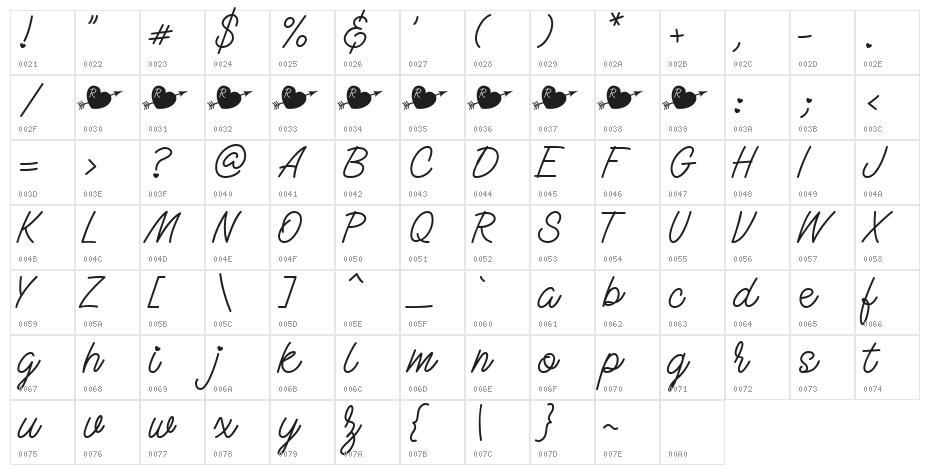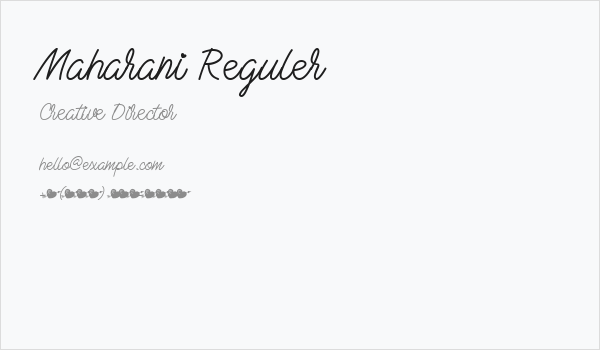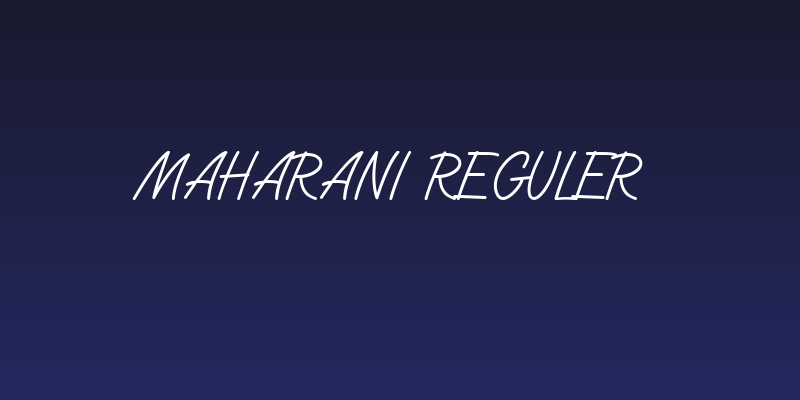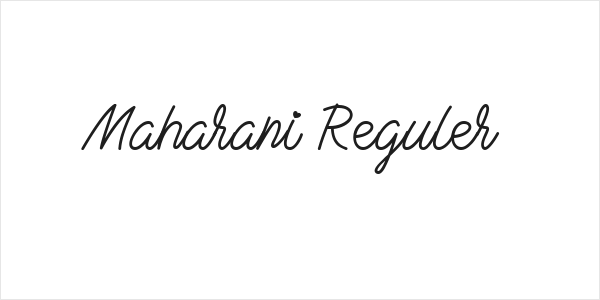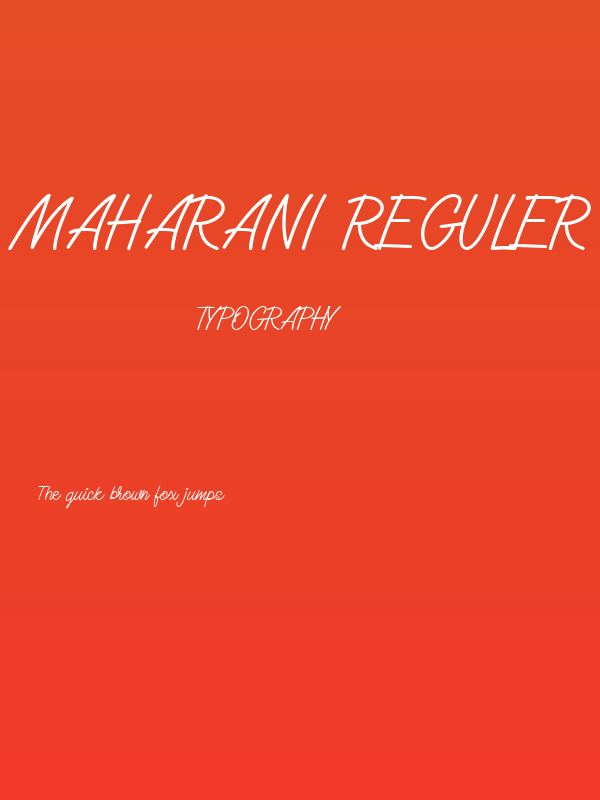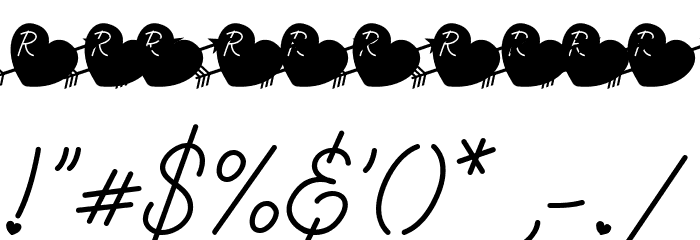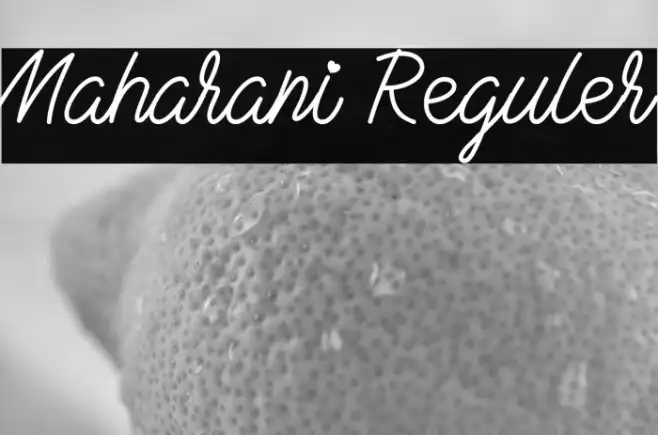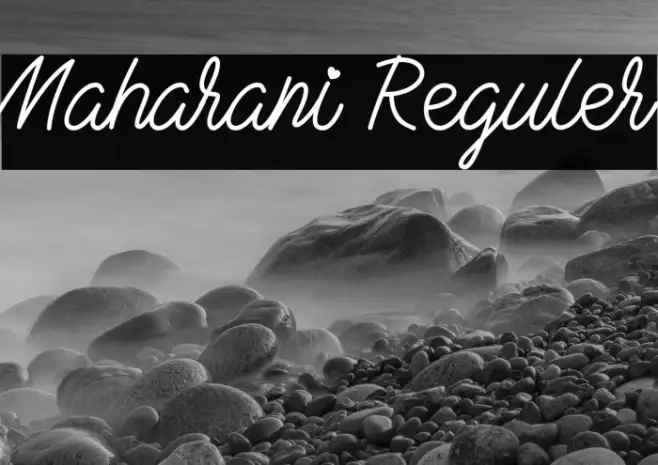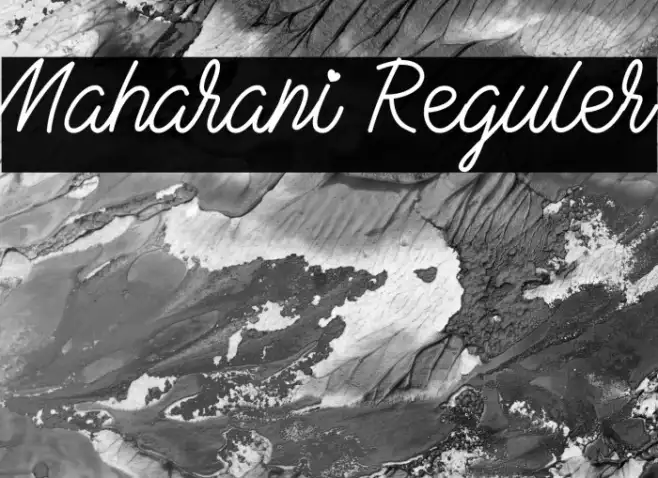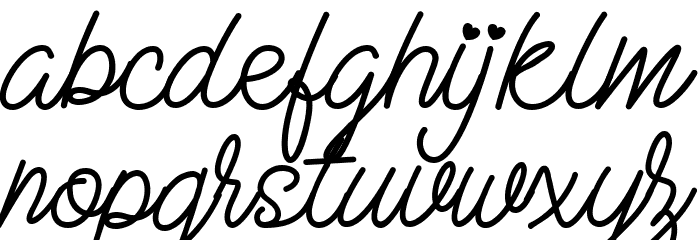
Maharani Reguler Font
Maharani Reguler Description
This elegant script font features a flowing, cursive style with smooth, connected strokes. The uppercase letters are tall and graceful, while the lowercase letters maintain a consistent slant, adding a sense of motion and fluidity. The font includes a variety of special characters and punctuation, all designed to complement the overall aesthetic. Its handwritten appearance gives it a personal and artistic touch, making it suitable for creative projects. The characters are evenly spaced, ensuring readability while maintaining the decorative nature of the script.
| Proposed Projects | Ideal for wedding invitations, greeting cards, branding, and artistic projects. |